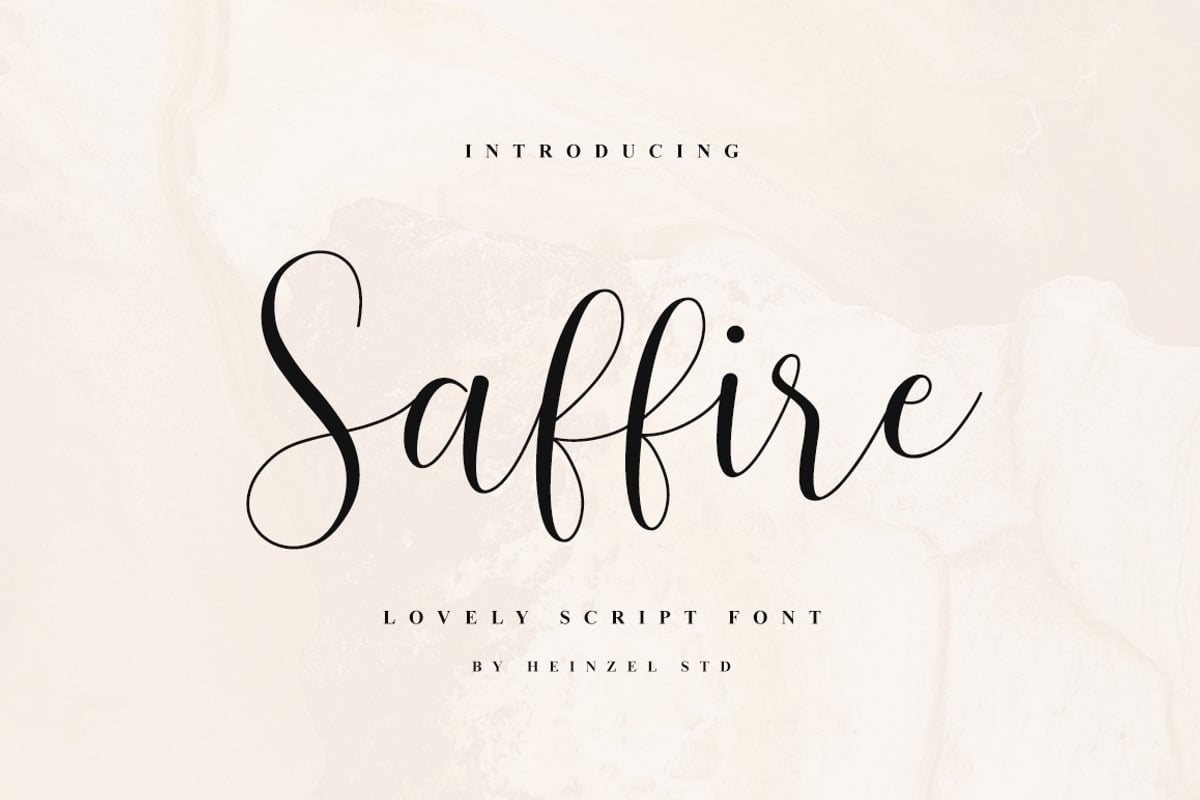
Saffire - Lovely Script Font
Saffire is the elegant, flowing script font that takes your designs from ordinary to breathtaking.
With a beautifully varying baseline, smooth wet-ink texture, and a rich collection of gorgeous glyphs, Saffire brings a luxurious handwritten feel to any project. Whether you're designing wedding invitations, branding materials, greeting cards, or product labels, this typeface delivers stunning results every time.
Saffire is fully PUA encoded, meaning every glyph — including alternates and ligatures — is accessible directly in any software without extra tools or workarounds. Its smooth ink texture also makes it a perfect match for physical production methods, including embroidery, laser cutting, gold foil printing, and more.
- Ligatures & Alternates
- Full set of uppercase and lowercase letters, numerals, and punctuation
- Multilingual support: ÁÂÃÄÅÆÇÈÉÊËÌÍÎÏÐÑÒÓÔÕÖØÙÚÛÜÝÞß àáâãäåæçèéêëìíîïðñòóôõöøùúûüýÿþ